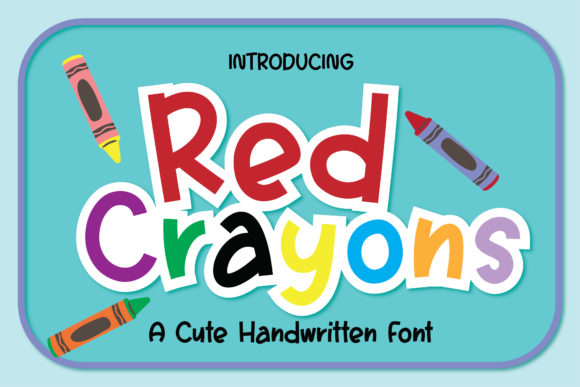
Welcome to the enchanting world of Red Crayons Font, a whimsical and exuberant display font that exudes joy and creativity! Prepare to be captivated by its cheerful charm, playful curves, and exuberant personality that will breathe life into your designs.
Red Crayons Font is not just a font; it's an invitation to express your boundless imagination. With its natural and unique style, this font blends seamlessly into a myriad of designs, adding a touch of cheer and uniqueness to every project.
Picture this: a wedding invitation adorned with the Red Crayons Font, its playful characters dancing across the page, promising a joyous celebration. Or, envision a thank-you card, its heartfelt message elegantly penned in this charming font, conveying gratitude with a personal touch.
The versatility of Red Crayons Font extends far beyond wedding stationery. Let your creativity soar as you craft captivating quotes, express heartfelt sentiments in greeting cards, design eye-catching logos, and create professional business cards that leave a lasting impression.
Join the creative revolution and embrace the endless possibilities of Red Crayons Font. Its user-friendly nature makes it perfect for both seasoned designers and enthusiastic beginners, ensuring a smooth and enjoyable design experience.